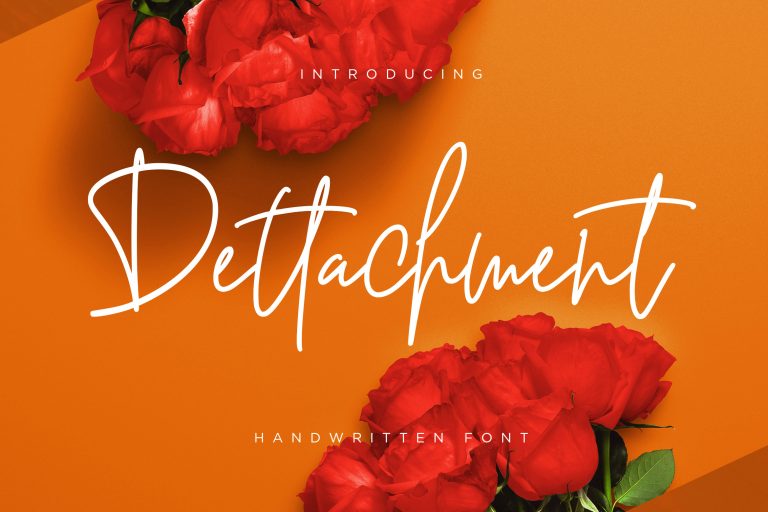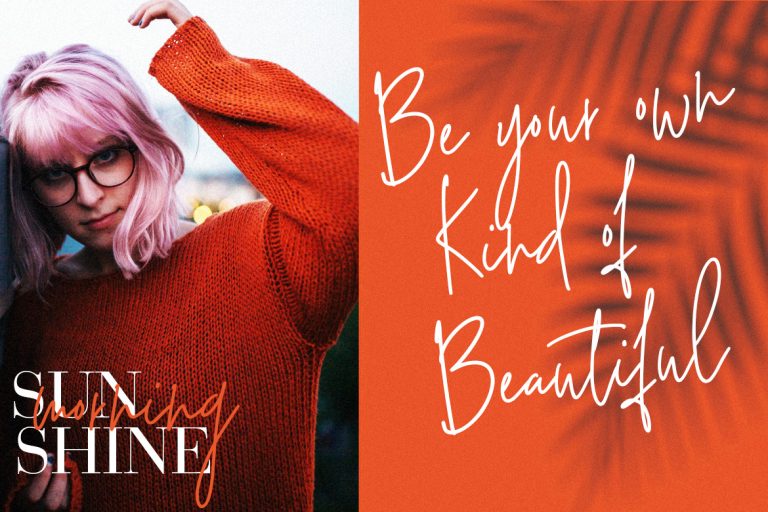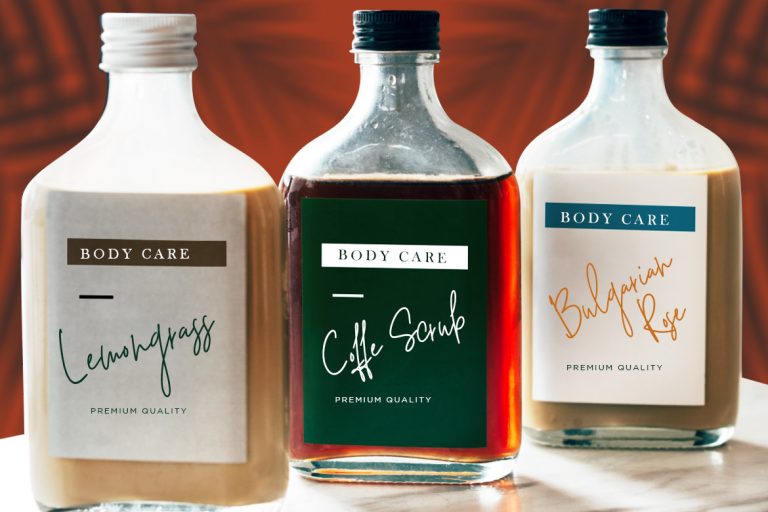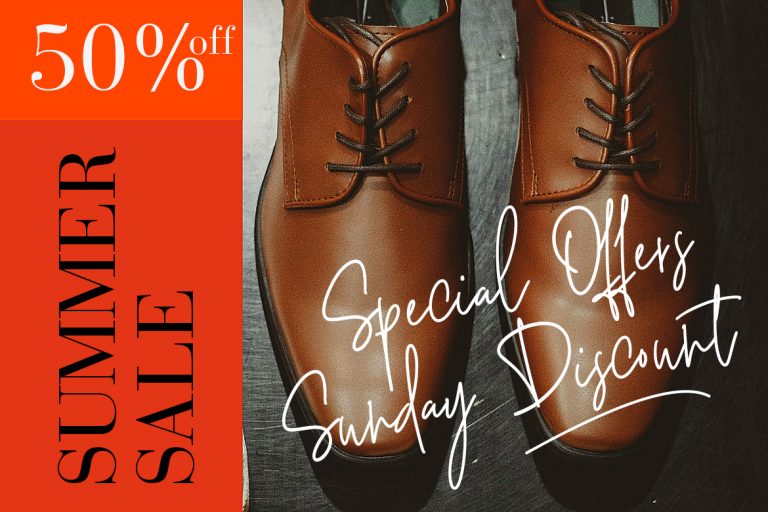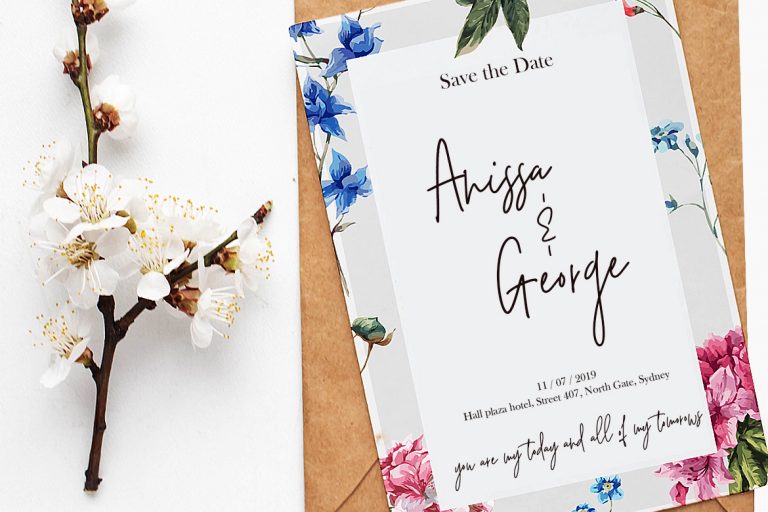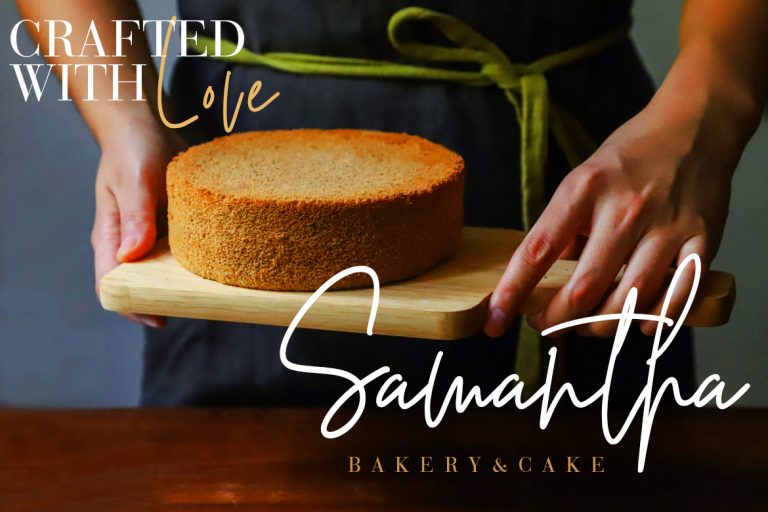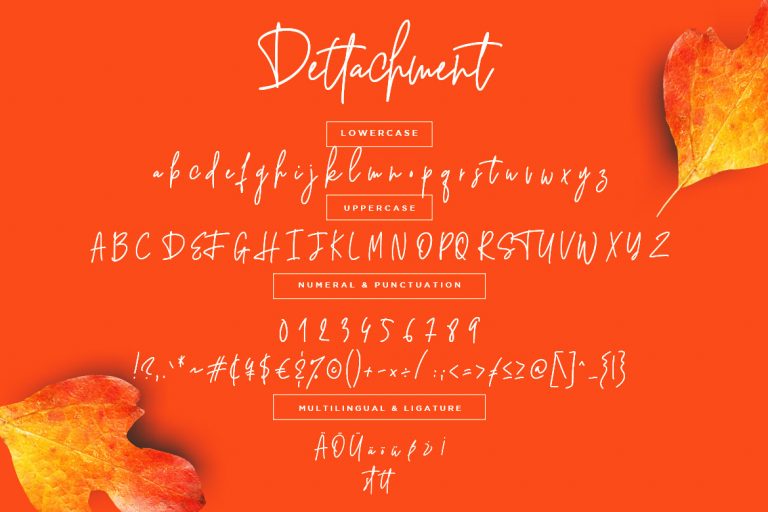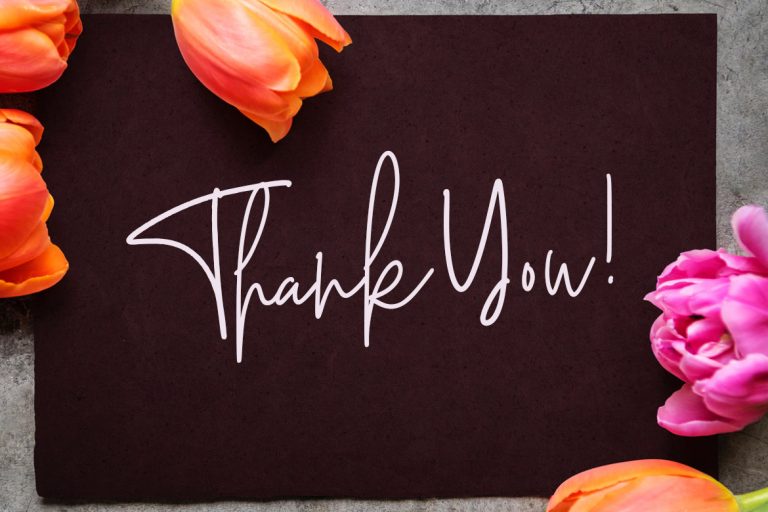
Dettachment Handwritten
Dettachment is handwritten signature with elegant and classy style.
Dettachment is perfect for branding projects, logo, wedding designs, social media posts, advertisements, product packaging, product designs, label, photography, watermark, invitation, stationery and any projects that need handwriting taste.
- Fonts include multilingual support for; ä ö ü Ä Ö Ü ß ¿ ¡